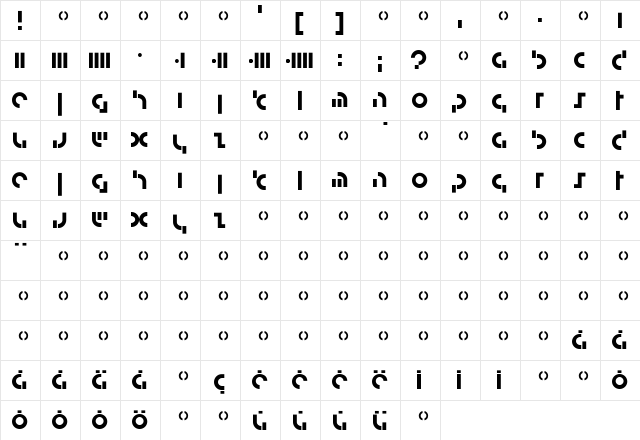
Graphic Medium Font Preview
Graphic Medium
Graphic Medium Font Details
| Foundry | \ Olyff & Rebels |
Design Context for Graphic Typeface
Graphic is a composed and adaptable typeface that performs quietly and consistently across a wide range of design contexts.